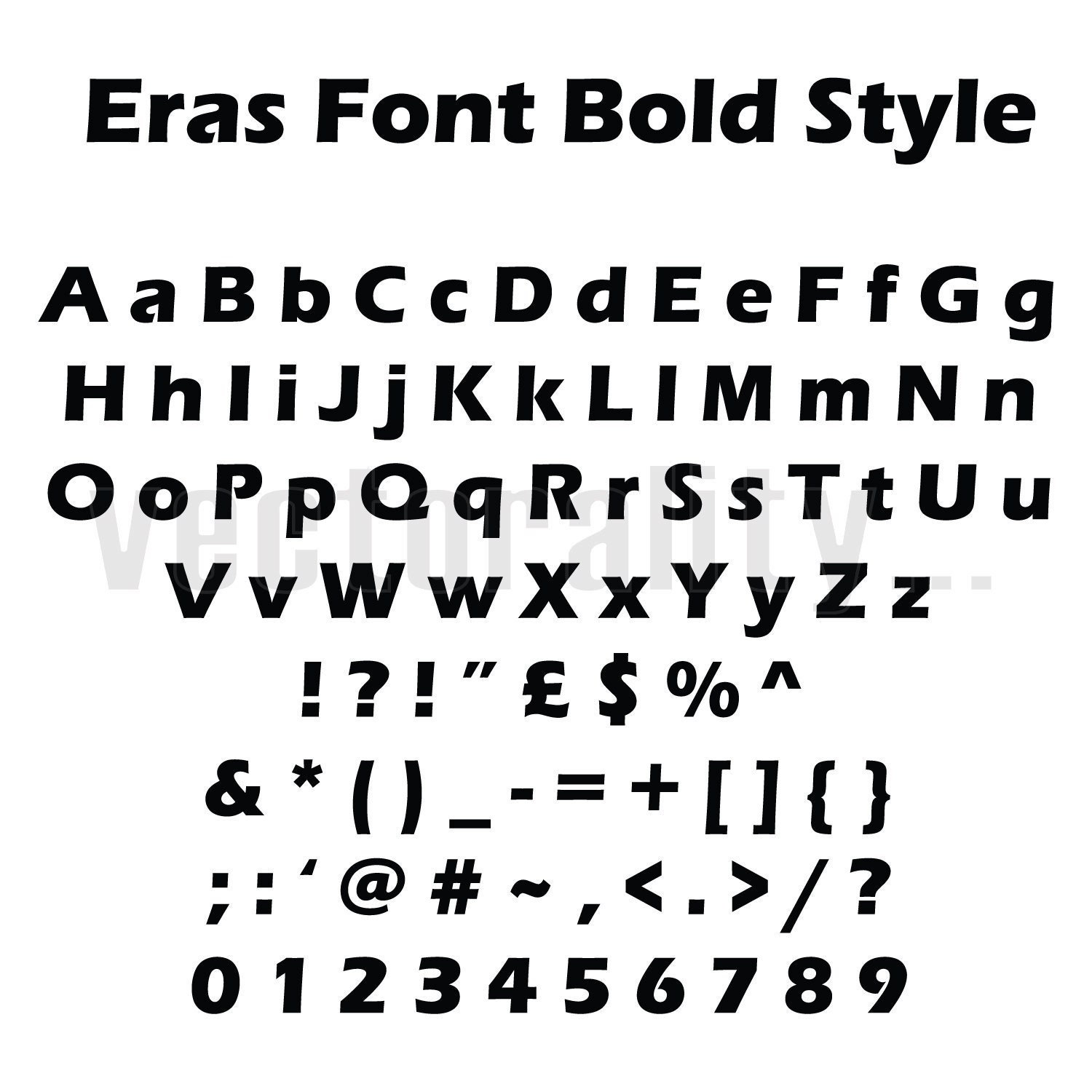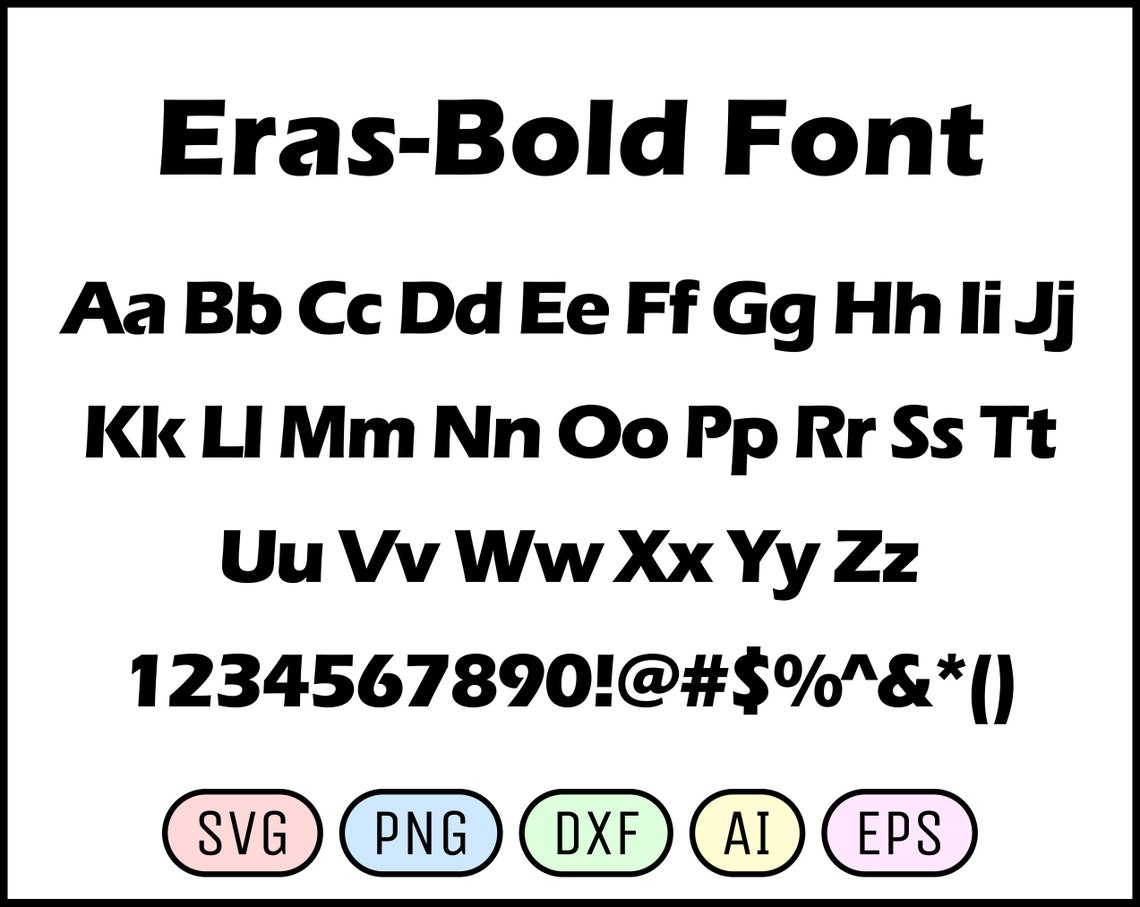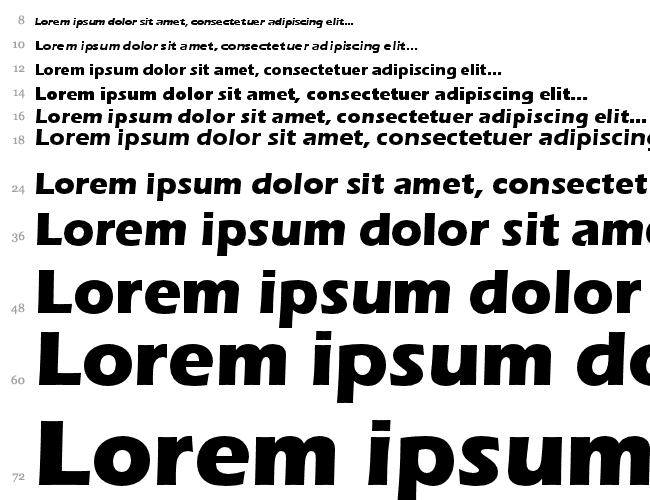
Eras Bold Font
Eras Bold Font - Web itc eras® bold font. Eras was first cut by the. Use the controls below to customize your text string and its. Itc eras font is the work of french designers albert boton and albert hollenstein. It is a typical sans serif. Download itc eras® bold font. Votes, rated based on results identification.
Download itc eras® bold font. Web itc eras® bold font. It is a typical sans serif. Use the controls below to customize your text string and its. Votes, rated based on results identification. Itc eras font is the work of french designers albert boton and albert hollenstein. Eras was first cut by the.
Download itc eras® bold font. Eras was first cut by the. It is a typical sans serif. Itc eras font is the work of french designers albert boton and albert hollenstein. Votes, rated based on results identification. Use the controls below to customize your text string and its. Web itc eras® bold font.
Use the controls below to customize your text string and its. Itc eras font is the work of french designers albert boton and albert hollenstein. It is a typical sans serif. Web itc eras® bold font. Eras was first cut by the.
Web itc eras® bold font. Use the controls below to customize your text string and its. Eras was first cut by the. Votes, rated based on results identification. Download itc eras® bold font.
Itc eras font is the work of french designers albert boton and albert hollenstein. Web itc eras® bold font. Download itc eras® bold font. It is a typical sans serif. Eras was first cut by the.
Use the controls below to customize your text string and its. Votes, rated based on results identification. Itc eras font is the work of french designers albert boton and albert hollenstein. Web itc eras® bold font. It is a typical sans serif.
Eras Bold ITC Font
Votes, rated based on results identification. It is a typical sans serif. Web itc eras® bold font. Eras was first cut by the. Itc eras font is the work of french designers albert boton and albert hollenstein.
It is a typical sans serif. Download itc eras® bold font. Itc eras font is the work of french designers albert boton and albert hollenstein. Votes, rated based on results identification. Eras was first cut by the.
Use the controls below to customize your text string and its. Eras was first cut by the. Votes, rated based on results identification. Download itc eras® bold font. Web itc eras® bold font.
Votes, rated based on results identification. Eras was first cut by the. Itc eras font is the work of french designers albert boton and albert hollenstein. Download itc eras® bold font. Web itc eras® bold font.
It is a typical sans serif. Votes, rated based on results identification. Download itc eras® bold font. Web itc eras® bold font. Itc eras font is the work of french designers albert boton and albert hollenstein.
Eras Was First Cut By The.
Itc Eras Font Is The Work Of French Designers Albert Boton And Albert Hollenstein.
It is a typical sans serif.